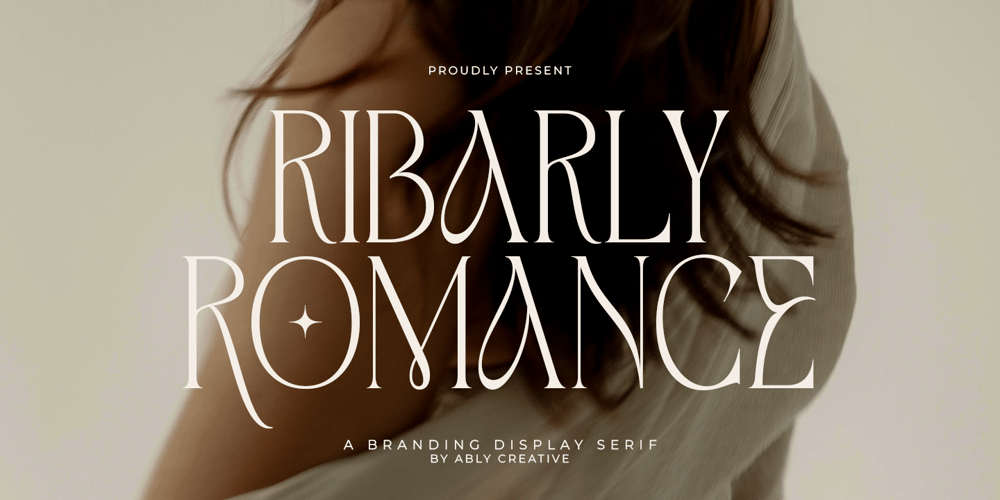
Ribarly Romance Font Family was designed by Amrullah Medan, Dedi Purwanto and published by Ably Creative. Ribarly Romance contains 1 styles and family package options. Ribarly Romance is a modern serif typeface with an elegant, classy ligature, inspired by the fashion trends of 2024. There are several alternative characters and ligatures with beautiful blends as well as language support options for each character. Ribarly Romance is the perfect choice for any creative, style, lifestyle design endeavor such as logos, advertising, watermarks on photography, stationery, branding projects, displays, and magazines, invitations, corporate branding, product design, labels, business projects and many more another project with an elegant touch.